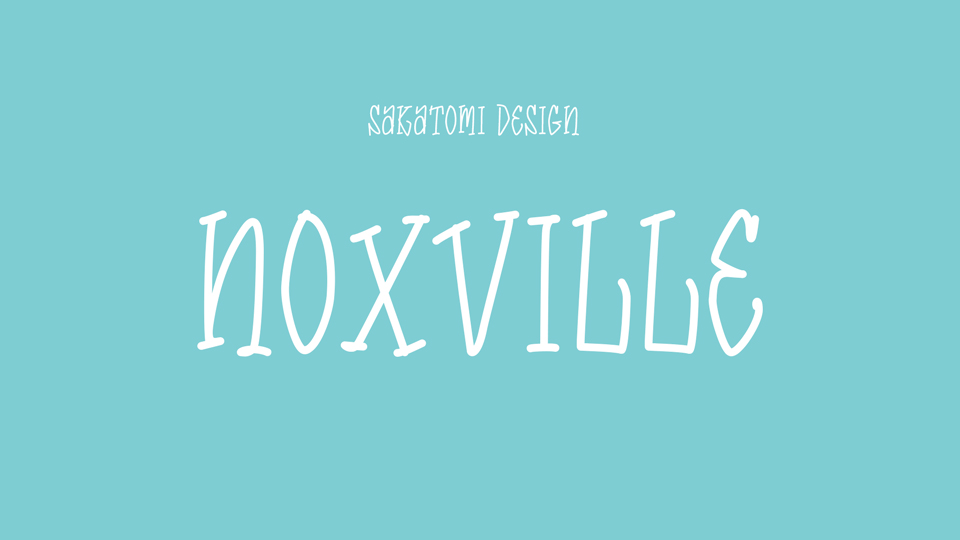
Feb 6, 2025Script & HandwrittenNoxville Font Noxville is a funny, tall and skinny serif font. With its hand lettered, rustic feel the font is perfect for postcards and notes, creating logotypes, social media posts, branding and packaging, etc. Font DetailsDesigned by: SAKATOMI DesignWebsiteLicense: Free for commercial use Download Noxville FontFile size: 28.31 KBCreated: February 16, 2025Updated: February 16, 2025 Download Explore similar fonts Western Airo Font Boprura Font Duo Licobe Font Rando Sans Font Family Picky Charm Font Duo Sunny Brunch Font Family # Casual# Handwriting# Playful More fonts by SAKATOMI DesignLayton FontMedderick FontLexico FontMakertone FontNooplie FontLowell FontLippett FontMohaw Font